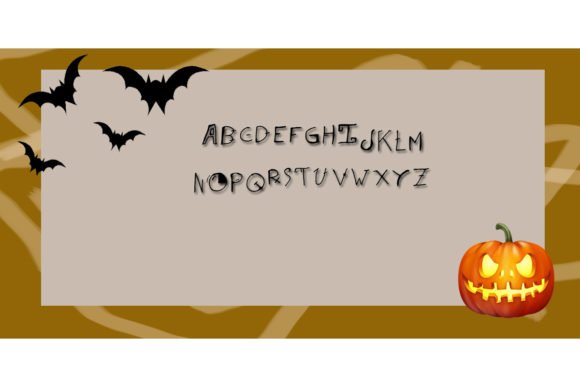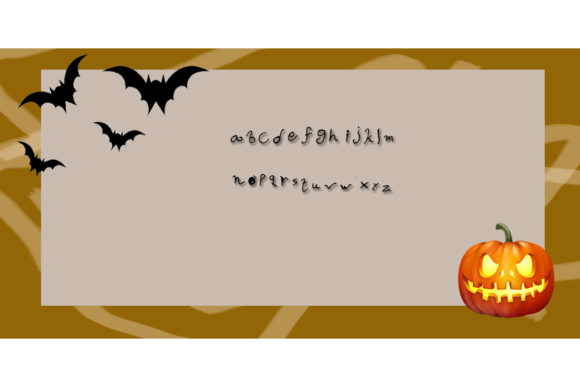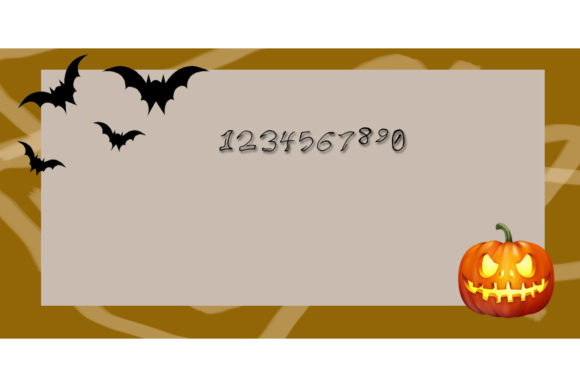
Unleash the Spook: Exploring the Creep Show Font for Your Halloween Projects
As the witching hour approaches, designers and crafters are on the lookout for the perfect typography to add a spine-tingling touch to their Halloween creations. Look no further than the Creep Show font, an incredibly unique and quirky display font that’s sure to cast a spell on your audience. In this article, we’ll dive into the world of Creep Show, exploring its features, uses, and tips for incorporating it into your Halloween-related projects.
The Creep Show Font: A Hauntingly Unique Typeface
Creep Show is a one-of-a-kind display font that’s specifically designed to add a touch of eeriness and whimsy to your designs. Its irregular shapes, uneven baselines, and quirky letterforms evoke the feeling of a creepy, old-school horror movie poster. The font’s distressed texture and rough edges give it a delightfully DIY feel, perfect for creating handmade-style crafts, invitations, and decorations.
Why Creep Show is Perfect for Halloween
Halloween is the perfect excuse to get creative and push the boundaries of typography. Creep Show’s spooky-chic aesthetic makes it an ideal choice for a wide range of Halloween-related projects, from:
- Invitations and party decorations
- Social media graphics and captions
- Blog posts and article titles
- Signs and banners
- Crafting and DIY projects, such as pumpkin carvings, Halloween cards, and scrapbooking
Tips for Using Creep Show in Your Designs
To get the most out of Creep Show, here are some tips to keep in mind:
- Use it sparingly: Creep Show is a display font, so it’s best used in moderation. Use it for headings, titles, or key phrases to add a touch of drama and whimsy.
- Experiment with colors: Creep Show looks great in bold, bright colors, but it also works well in more muted, pastel shades. Don’t be afraid to experiment and find the perfect color combination for your design.
- Mix and match: Combine Creep Show with other fonts to create a unique and eye-catching contrast. Try pairing it with a clean, sans-serif font for a striking effect.
- Get creative with textures: Creep Show’s distressed texture is a key part of its charm, but you can also experiment with adding other textures, such as glitter, blood, or cobwebs, to give your design an extra scare.
Crafting and DIY Projects with Creep Show
Creep Show is a crafter’s dream font, perfect for adding a personal touch to handmade Halloween projects. Here are some ideas to get you started:
- Halloween cards and invitations: Use Creep Show to create spooky-chic cards and invitations that will set the tone for your Halloween party.
- Pumpkin carvings: Use Creep Show to stencil your design onto pumpkins for a unique and eye-catching effect.
- Scrapbooking: Add a touch of Halloween magic to your scrapbook pages with Creep Show, perfect for documenting your favorite Halloween memories.
- DIY decorations: Use Creep Show to create signs, banners, and other decorations that will add a touch of spooky whimsy to your Halloween party.
| Font Name | Creep Show Font |
| Author | Designs_by_Shorty |
Creep Show is an incredibly unique and quirky display font that’s perfect for adding a touch of Halloween magic to your designs. Whether you’re a designer, crafter, or simply someone who loves the spooky season, Creep Show is sure to inspire your creativity. So why not give it a try? Unleash your imagination, and let Creep Show do the rest. The only limit is your imagination!